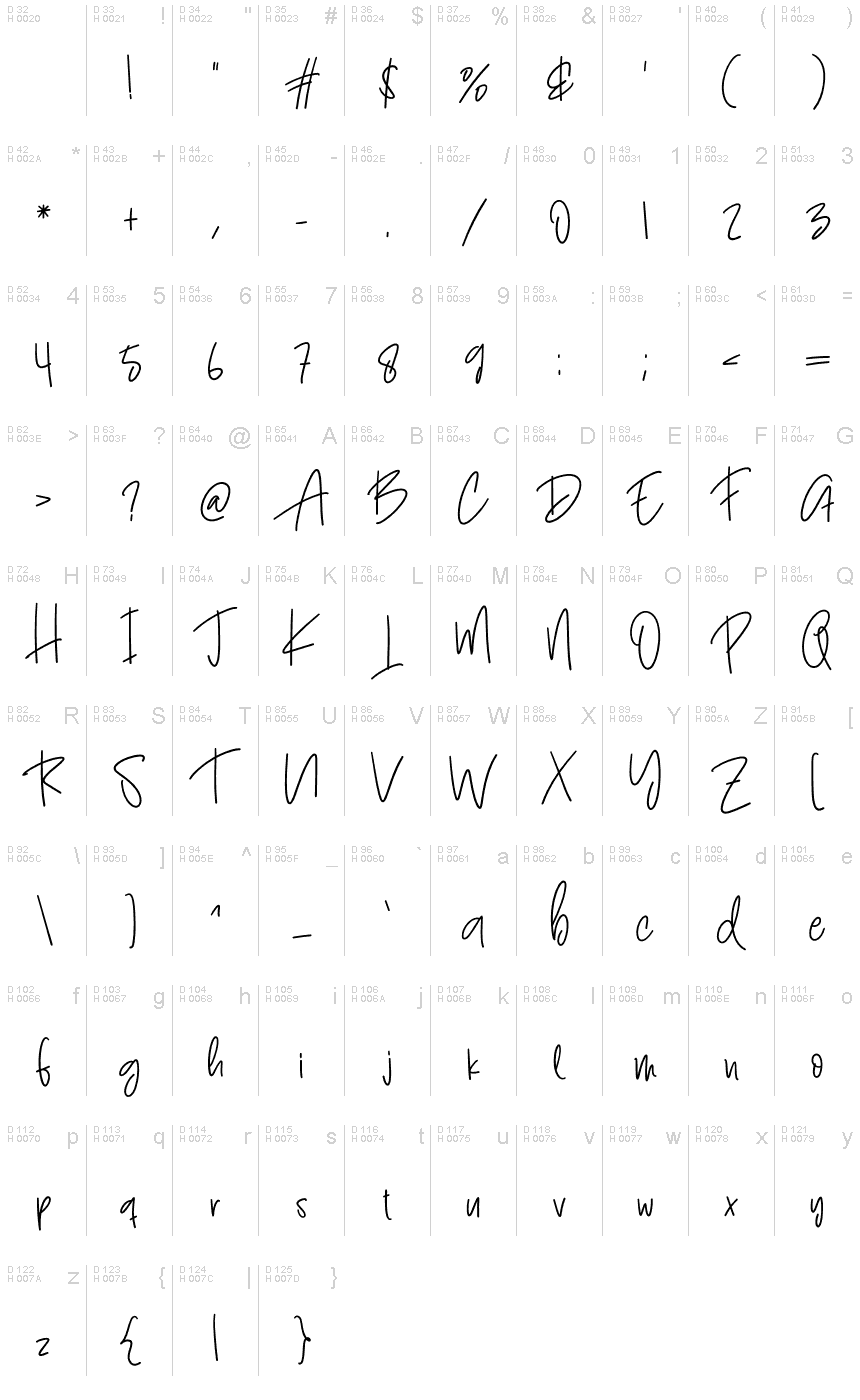
Handmade School
Handmade School, designed by scratchones, is a delightful handwritten font that exudes a light and whimsical vibe. With its playful strokes and charming imperfections, this font is perfect for various creative projects. Use it to add a touch of youthful fun to children's book illustrations or design captivating greeting cards. Its legibility makes it suitable for crafting eye-catching logos and branding materials. Whether you're working on scrapbooking projects or creating engaging social media graphics, Handmade School will bring an authentic handmade feel that captures attention and spreads joy.
the latest style letters are perfect for wall displays, wedding invitations, social media post logos, advertisements, product packaging, product designs, labels, photography, watermarks, invitations, stationery, and any project that requires taste handwriting.